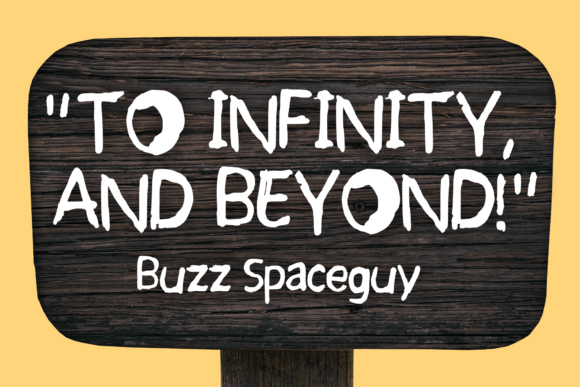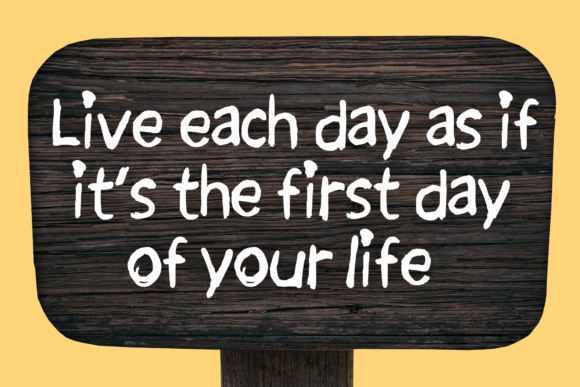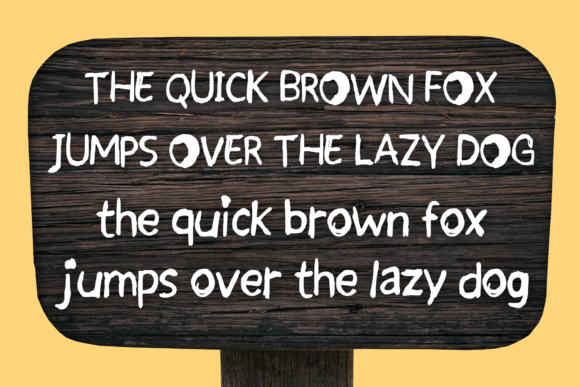
Have you ever been in the middle of a design project, and suddenly, you’re stuck on finding the perfect font? I recall a recent experience where I was working on a camping-themed t-shirt design, and my client specifically asked for a font that was both playful and rugged. After hours of searching, I stumbled upon the Camping Sign font, and it instantly became my go-to choice. In this article, we’ll dive into the world of Camping Sign font, exploring its features, uses, and everything in between.
A Personal Review: What I Love About Camping Sign Font
- ✨ Playful yet grungy texture: The font has a unique, hand-crafted feel that adds a touch of personality to any design.
- ✅ Versatility: Whether you’re designing a t-shirt, book cover, or poster, Camping Sign font adapts seamlessly to various styles and themes.
- 💡 Easy to read: Despite its grungy texture, the font remains highly legible, making it perfect for designs that require a clear message.
While Camping Sign font is an excellent choice, there are a few minor quirks to be aware of:
- 🤔 Limited formal use: Due to its playful nature, Camping Sign font might not be the best fit for formal or corporate designs.
- ⚠️ Glyph limitations: Some users have reported that the font could benefit from a more extensive glyph set, particularly for non-English characters.
Camping Sign font was designed with the great outdoors in mind. The creator wanted to capture the essence of a handwritten sign you’d find at a campsite or a rustic cabin. The result is a font that’s both playful and rugged, perfect for designs that require a touch of personality.
| Q: What type of designs is Camping Sign font best suited for? | A: Camping Sign font is perfect for designs that require a playful, grungy touch, such as t-shirts, book covers, posters, and stickers. |
| Q: Is Camping Sign font available in multiple languages? | A: While Camping Sign font supports multiple languages, some users have reported limitations with non-English characters. |